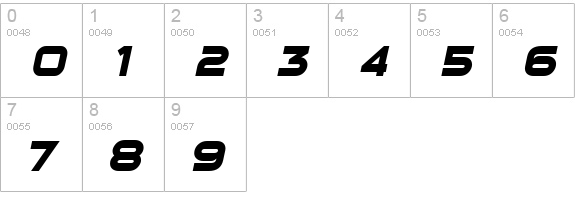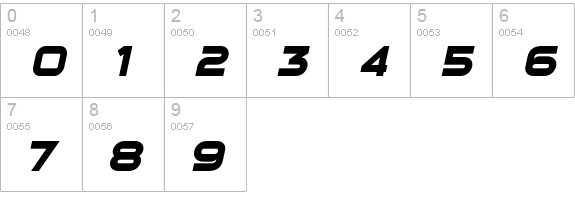
Sui Generis Bold Italic is a strong, high-contrast, italic variant in the Sui typeface family \xE2\x80\x94 well suited to headlines, attention-grabbing titles, and strong calls-to-action.
Sui Generis Bold Italic font is a unique and stylish typeface that exudes confidence and sophistication. Its bold and italic design adds a touch of flair to any project, making it perfect for headings, logos, and branding materials. The sleek curves and sharp angles of this font create a modern and eye-catching look that is sure to make a statement. Best of all, Sui Generis Bold Italic font is available for free download at FontsMarket.com. This means you can effortlessly elevate your designs without breaking the bank. Whether you're a professional designer or a hobbyist looking to add some pizzazz to your creations, Sui Generis Bold Italic font is the perfect choice. Download it today and unleash your creativity with this stunning and versatile typeface.